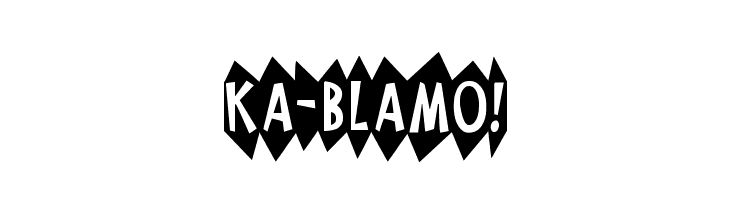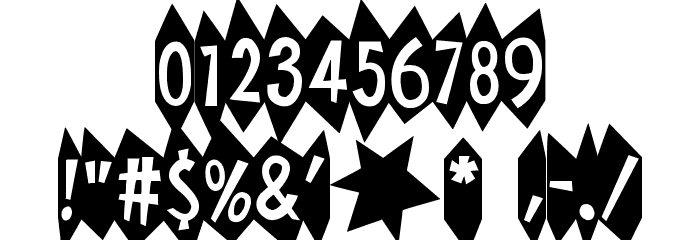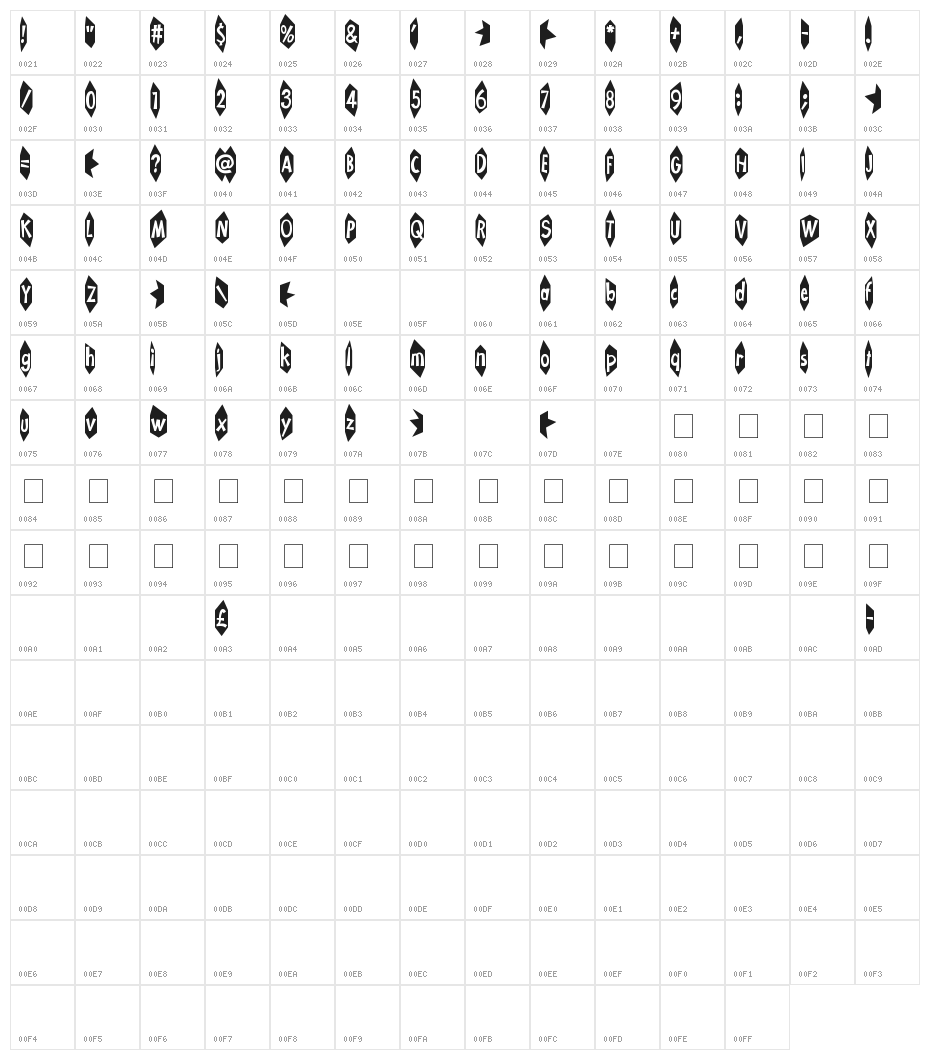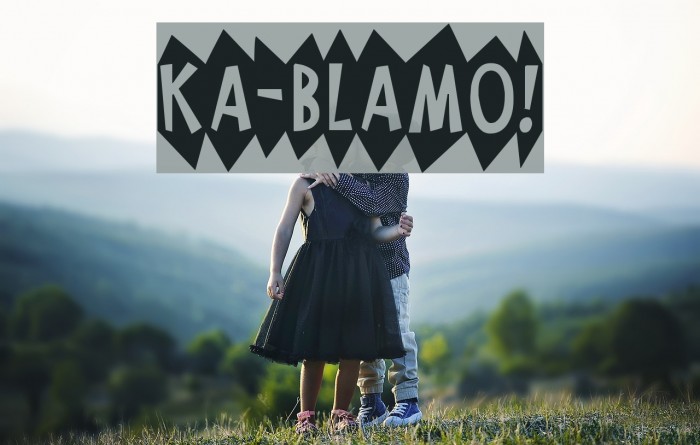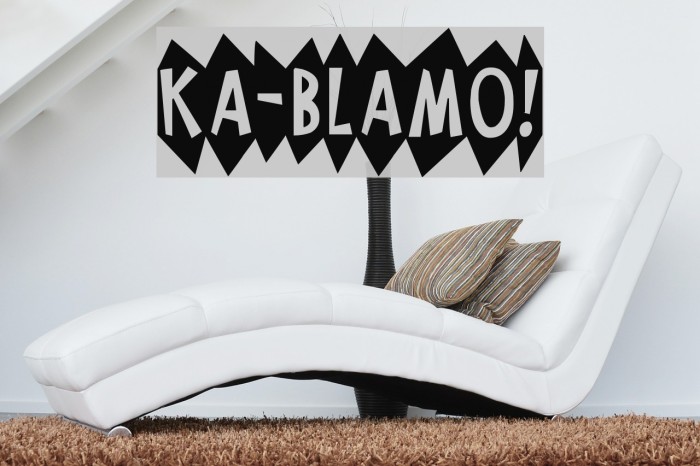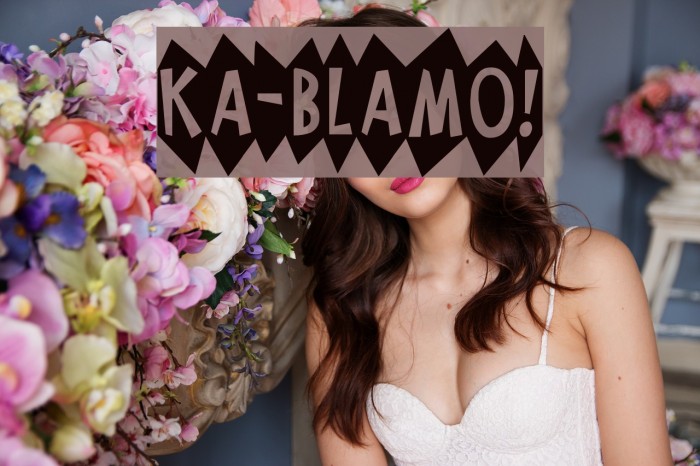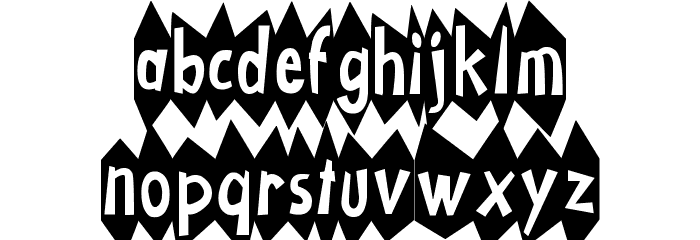
KA-BLAMO! Font
KA-BLAMO! Description
This font features a bold, dynamic style with a playful and energetic appearance. Each character is encapsulated in a jagged, starburst-like shape, giving it a comic book or pop art feel. The letters are uppercase and lowercase, with a consistent thickness that maintains readability despite the decorative background. The numbers and special characters follow the same design, ensuring a cohesive look across all elements. This font is ideal for projects that require a fun and eye-catching aesthetic.
| Overall Style | Playful, Energetic, Comic |
| Proposed Projects | Ideal for comic books, children's posters, playful branding, and event flyers. |